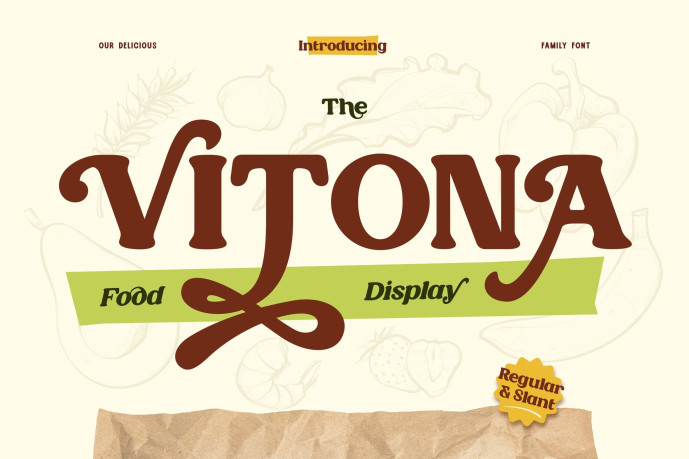
Vitona Display Font
Vitona Display Font – A bold and stylish typeface with a unique mix of vintage charm and modern style. This font comes in two styles: Regular and Slant, so you can mix and match for the perfect look.
Vitona also includes ligatures and alternate characters, giving you plenty of options to create eye catching designs. Plus, with multilingual support, it’s ready to bring your work to a global audience. Perfect for modern or retro-themed designs, whether it’s a trendy menu, standout social media post, food branding, packaging, poster, and more!
Features:
• A – Z set (Uppercase & Lowercase)
• Number
• Punctuation
• Alternate
• Ligature
• Multilingual